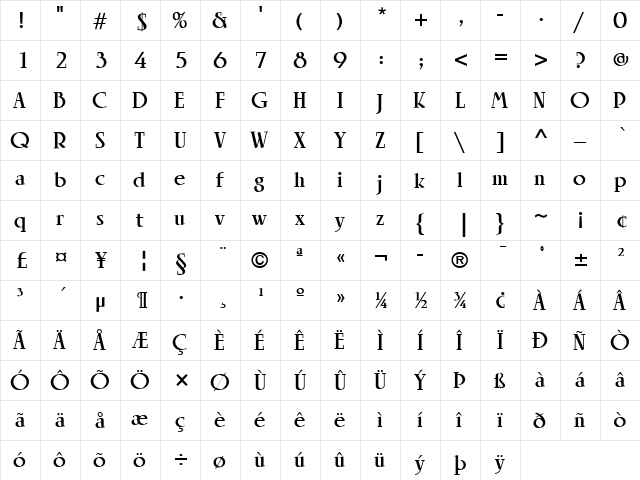
LTRowena Regular Bold
Design Context for LTRowena Regular Typeface
LTRowena Regular takes a measured approach to typography — its balanced proportions and neutral character make it a reliable workhorse for both digital and print work. The heavy weight commands attention and anchors typographic hierarchies.